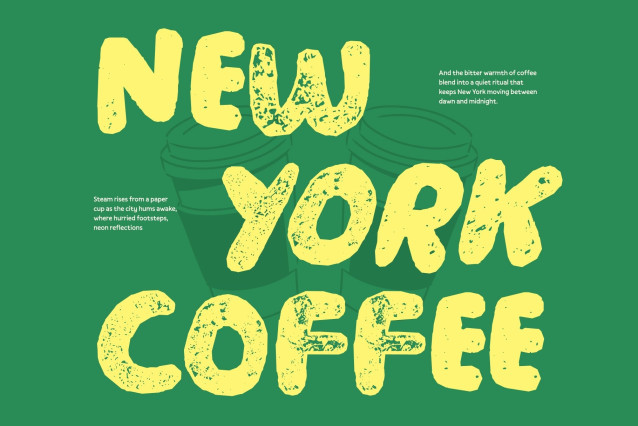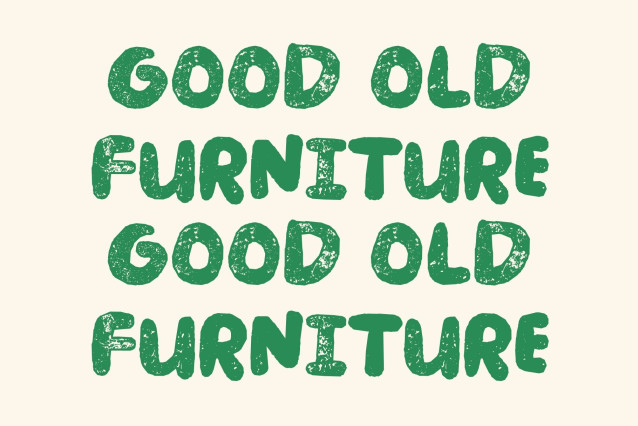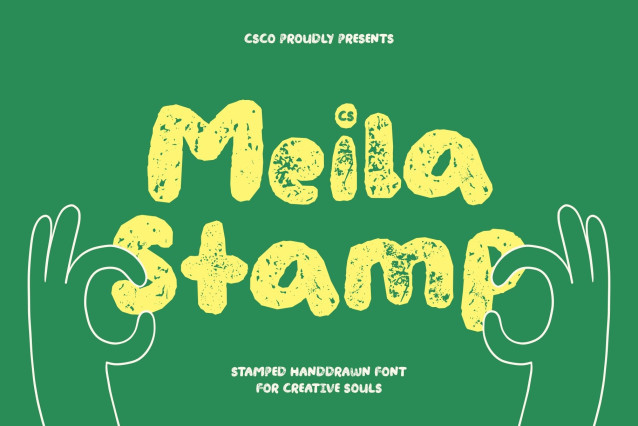
CS Meila Stamp Font
CS Meila Stamp – Playful Kids’ Font with Lively Personality
Cheerful Shapes Full of Fun Energy
This is a kids’ display font created to spark joy, creativity, and imagination. Its lively curves and bouncy letterforms create a playful rhythm that instantly captures attention, making every word feel bright, friendly, and full of youthful charm.
Expressive Characters with Dynamic Appeal
Bold, energetic shapes give the font a unique personality that stands out in fun and colorful layouts. The lively construction adds a sense of movement and excitement, helping designs feel engaging, animated, and full of life.
Friendly Style with Whimsical Details
Rounded strokes and charming details make this font approachable and imaginative. While playful and expressive, it remains clear and readable, creating a perfect balance between fun and functionality for kid-focused designs.